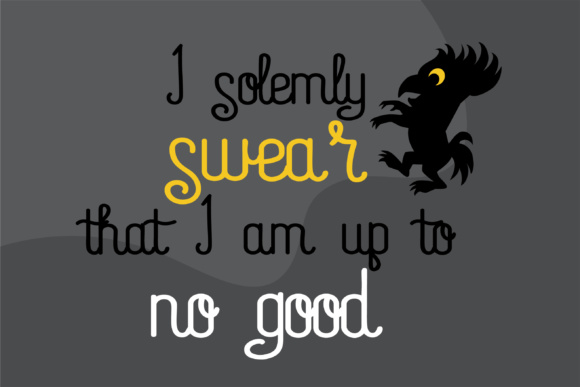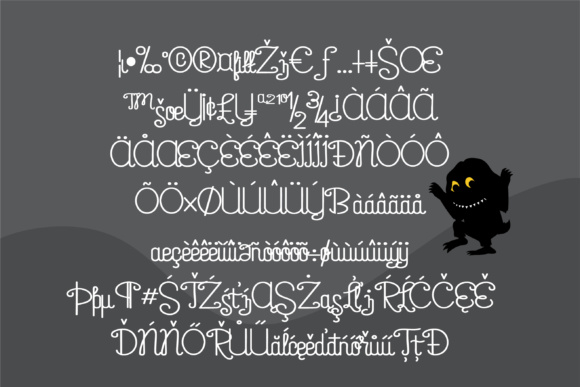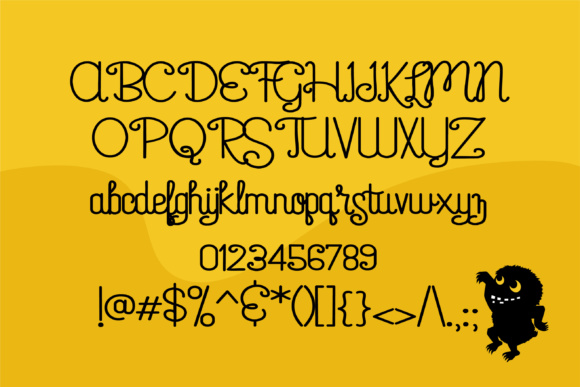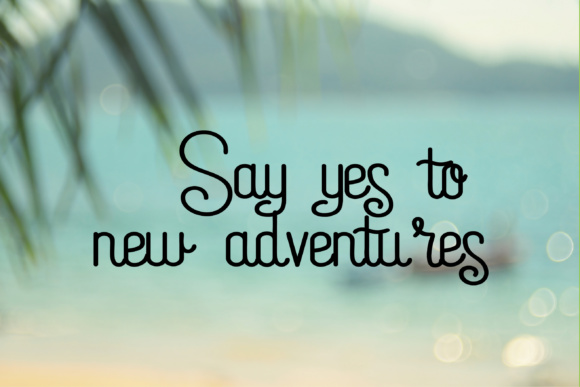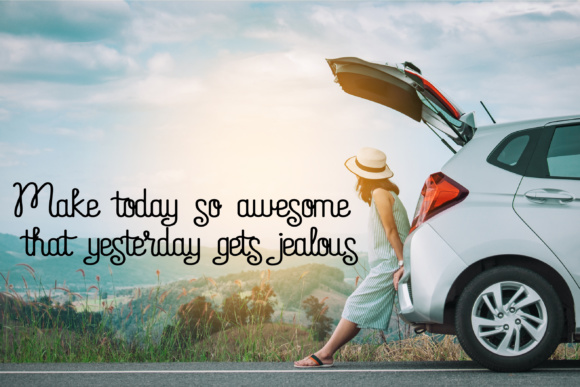
HomeScript FontsZP Beastly Gorgioso Font Script Fonts ZP Beastly Gorgioso Font FacebookXPinterestWhatsApp ZP Beastly Gorgioso Font Poster 2 ZP Beastly Gorgioso Font Poster 3 ZP Beastly Gorgioso Font Poster 4 ZP Beastly Gorgioso Font Poster 5 ZP Beastly Gorgioso Font Poster 6 About ZP Beastly Gorgioso Font This hand-written script sports some curls and is very upright and oval. DOWNLOAD ON CREATIVE FABRICAThis font is sold and delivered by Creative Fabrica. Font Canyon may earn a commission if you buy through this link. People also explored Dismey Font Buable Font Valentine Local Roast Mauve Bella Canvas 3001 T Shirt Mockup Graveland Font Marysha Script Font Pharmacy Creatie Font 289 0 TagsZP Beastly Gorgioso Font Previous articleZP Schnugguns FontNext articleZP Jack and Diane Font LEAVE A REPLY Cancel reply Comment: Please enter your comment! Name:* Please enter your name here Email:* You have entered an incorrect email address! Please enter your email address here Website: Save my name, email, and website in this browser for the next time I comment. Personal Use Free Oaklevin Personal Use Free Read more about this font Euphorigenic Personal Use Free Read more about this font Avatarock Personal Use Free Read more about this font Dream Personal Use Free Read more about this font BLOG Exploring Font Trends Shaping Communication in the Digital Era Fonts, like all design elements, are subject to trends. They play a crucial role in communicating a brand's personality,... Where to Buy American Fonts Online in 2024 5 Fonts That Will Dominate Design Trends in 2026 How to Install and Use Fonts on Windows, macOS, and Web Projects